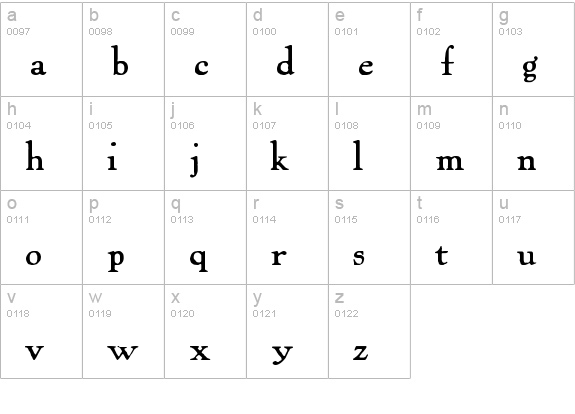
VTPabstOldstyle Roman Font Details
Introducing VTPabstOldstyle Roman, a timeless and elegant font that effortlessly marries classic sophistication with modern design. With its clean and refined lines, this font exudes a sense of grace and professionalism that is perfect for a wide range of projects, from branding and logo design to editorial layouts and invitations. VTPabstOldstyle Roman captures the essence of traditional typography while adding a contemporary twist, making it versatile and adaptable for both print and digital applications. Its balanced letterforms and subtle variations in stroke width create a harmonious and pleasing reading experience, ensuring that your message is conveyed with clarity and finesse. One of the most remarkable aspects of VTPabstOldstyle Roman is its availability as a free download at FontsMarket.com. This means that anyone can access and utilize this exceptional font without any cost, making it a valuable asset for designers, students, and professionals alike. Its accessibility ensures that creativity knows no boundaries and that everyone can benefit from the timeless beauty and sophistication that VTPabstOldstyle Roman offers. Whether you are crafting a logo for a high-end brand, designing a wedding invitation, or creating a magazine spread, VTPabstOldstyle Roman will elevate your project with its timeless elegance and refined aesthetic. Its versatility and accessibility make it a must-have font for any designer's toolkit. So why wait? Visit FontsMarket.com and download VTPabstOldstyle Roman for free today to add a touch of classic beauty to your next design endeavor.